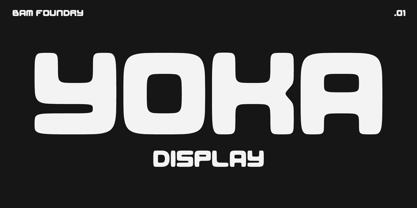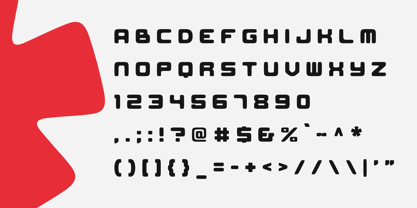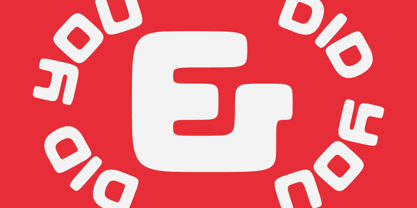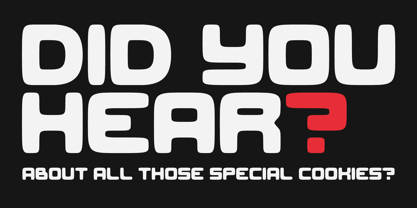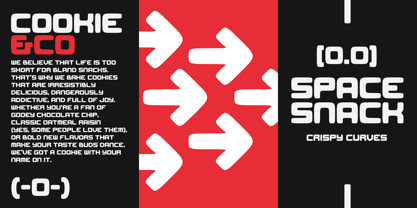
Yoka
by Bam Foundry
The Yoka Font Family was designed by Fredrik Blidborg and published by Bam Foundry. Yoka contains 2 styles and family package options. More about this family
Yoka is a display typeface designed to stand tall and demand attention. It refuses to sit quietly in the corner. Its bold, square forms make it effortless to fill a page, while smooth, rounded corners give it a friendly and approachable character. Whether on logotypes, t-shirts, packaging, brand identities, books, magazines, newspapers, posters, or billboards, Yoka thrives in spaces where presence matters.
Designers: Fredrik Blidborg
Foundry: Bam Foundry